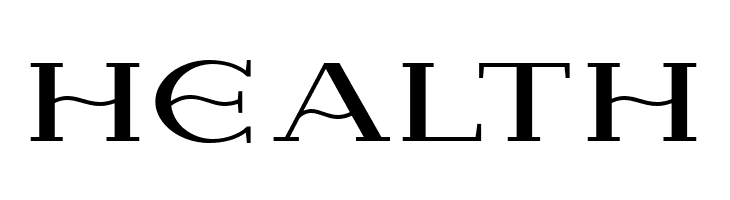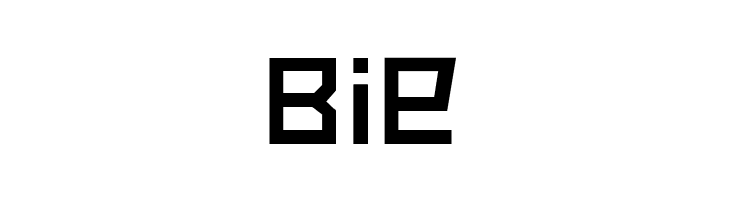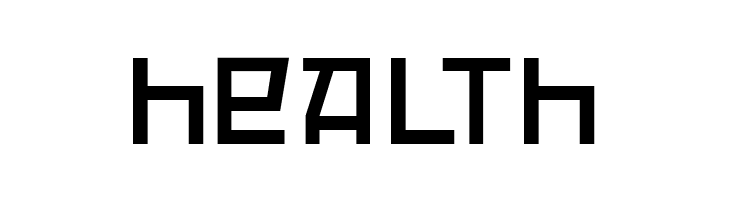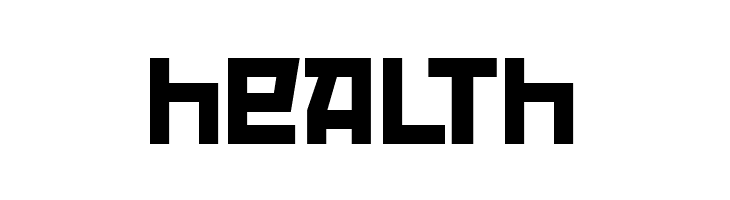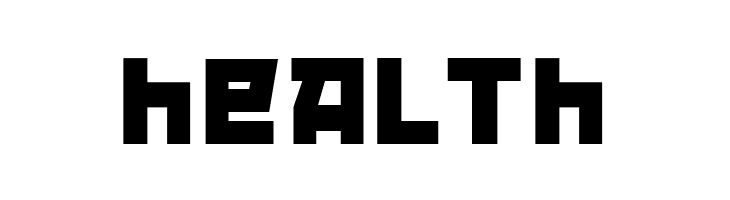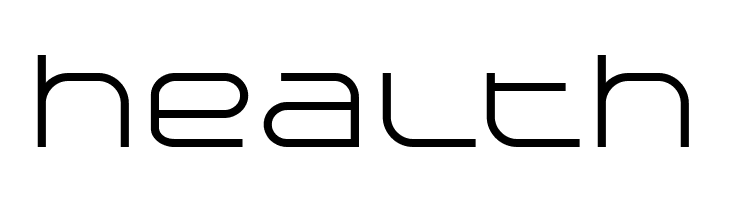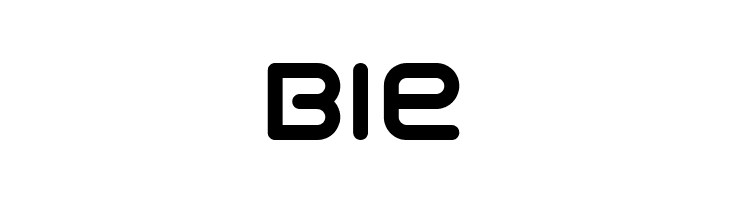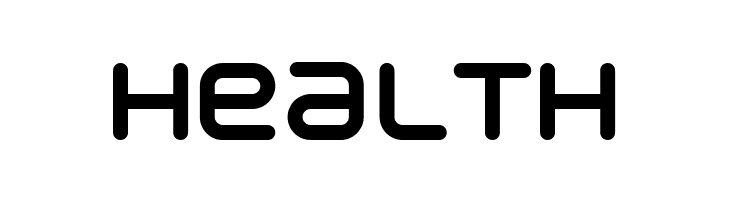
A modern, geometric stencil font with a futuristic and industrial design.
A bold, geometric font with strong, angular lines and a modern aesthetic.
A bold, geometric font with strong, angular lines and a modern industrial look.
A modern, elegant font with geometric and humanist influences.
A bold, geometric font with a modern, industrial aesthetic.
A bold, geometric font with sharp angles and a modern, industrial style.
A modern, geometric font with clean lines and rounded edges.
A modern, geometric font with rounded edges and a futuristic style.